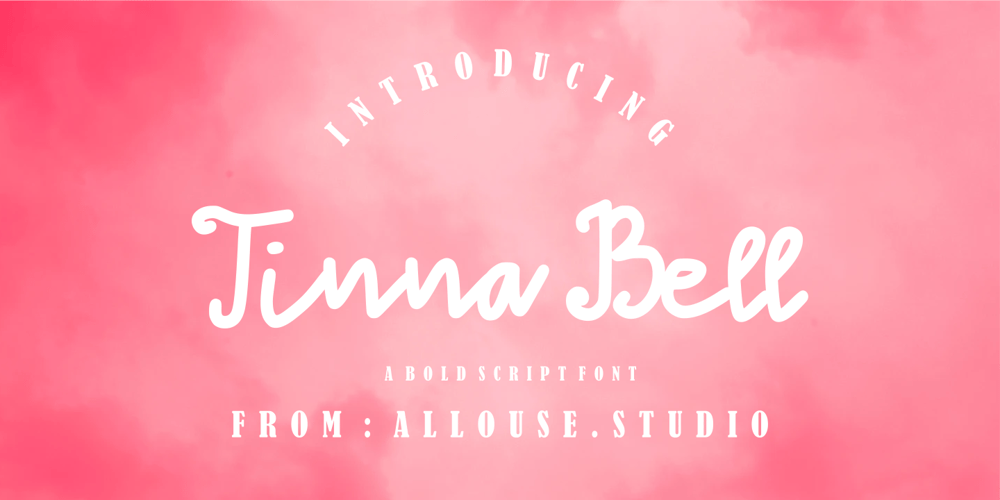
Thinna Bell Font Family was designed by Fachrizal Yusuf and published by Allouse Studio. Thinna Bell contains 1 styles and family package options. Proudly PresentingTinna Bell, a Bold Script Font.Tinna Bell is perfect on any tittle, product packaging, branding project, megazine, social media, wedding, or just used to express words above the background.Enjoy the font, feel free to comment or feedback, send me PM or email. Thank You!